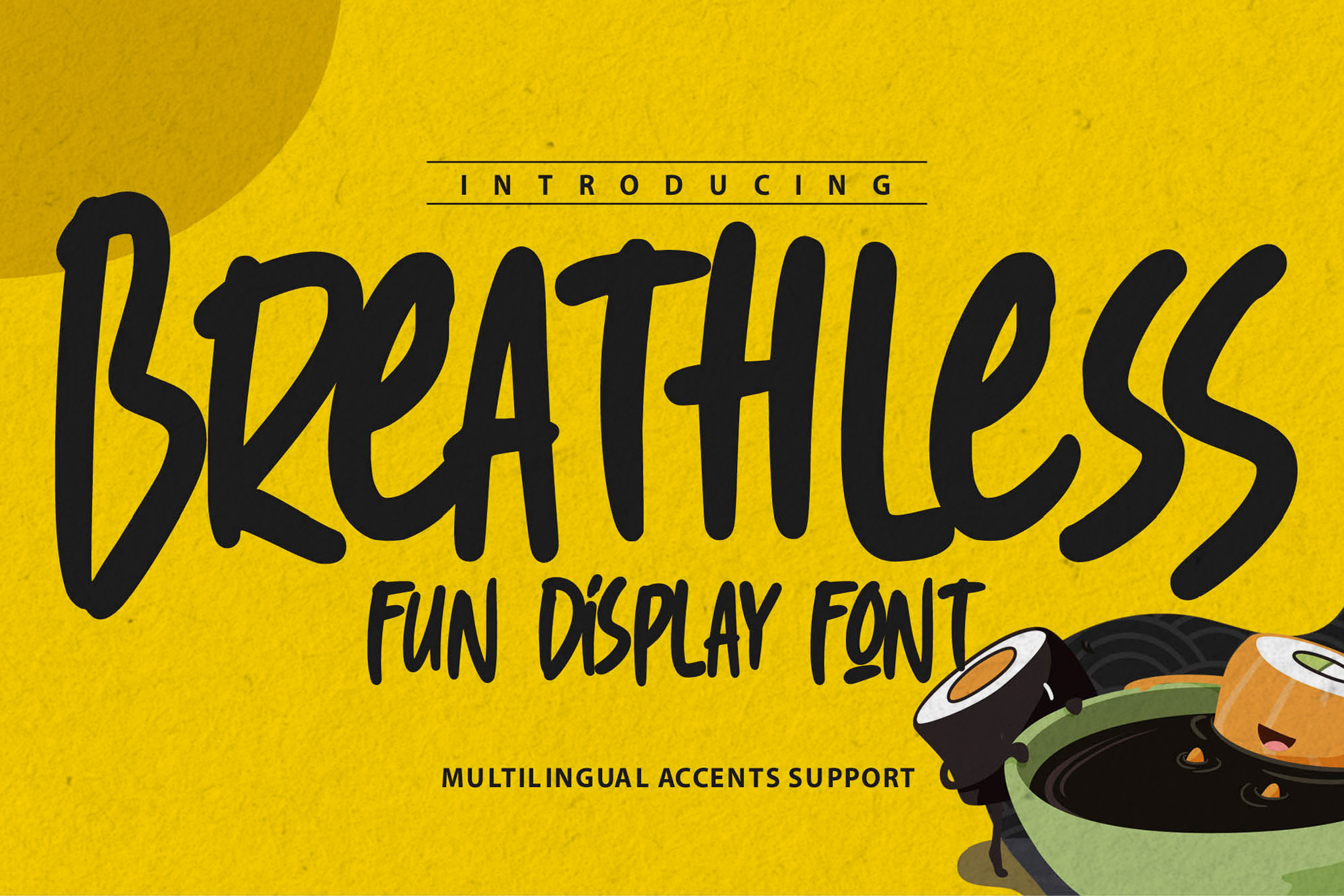
Breathless - Fun Display Font
Hello Everyone, introduce our new product Breathless is Fun Display Font with a natural feel. This handmade font will make your design has a beautiful natural touch for each details. It is perfect for any design project as Invitation,logo, book cover, craft or any design purposes. Breathless Inspired by Food Logo style and combination with Unique Craft style. that will fulfill your design needs for quotes,sporty theme, logotype, wordmark, etc. This has many opentype features and support multi language.
This font is PUA encoded which means you can access all of the magical glyphs with ease! It also features a wealth of special features including ligatures glyphs and Alternates glyphs.
- Alternates glyphs
- Ligatures glyphs